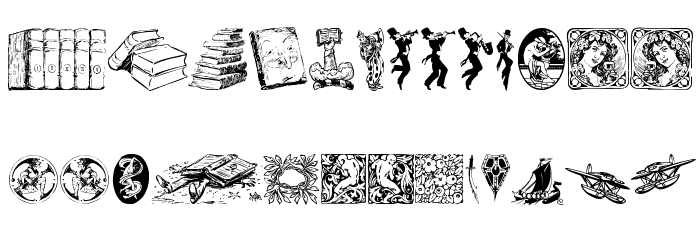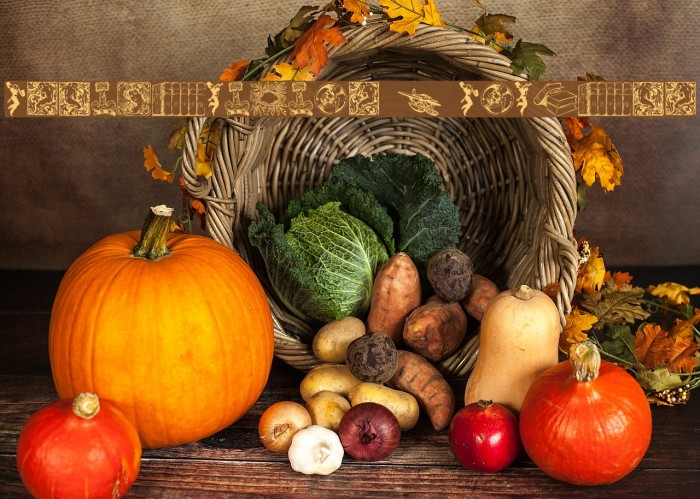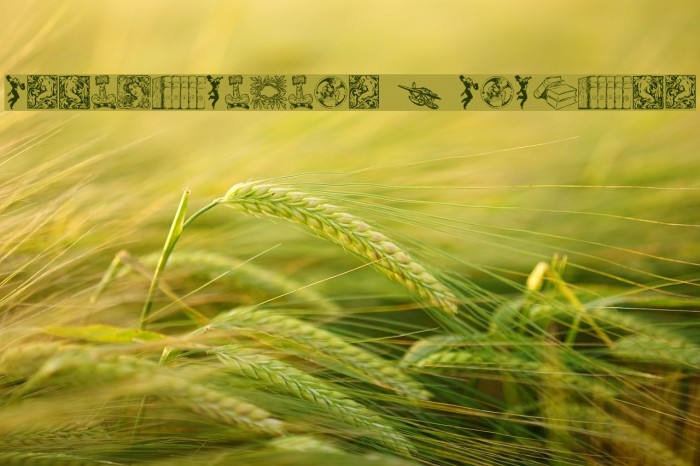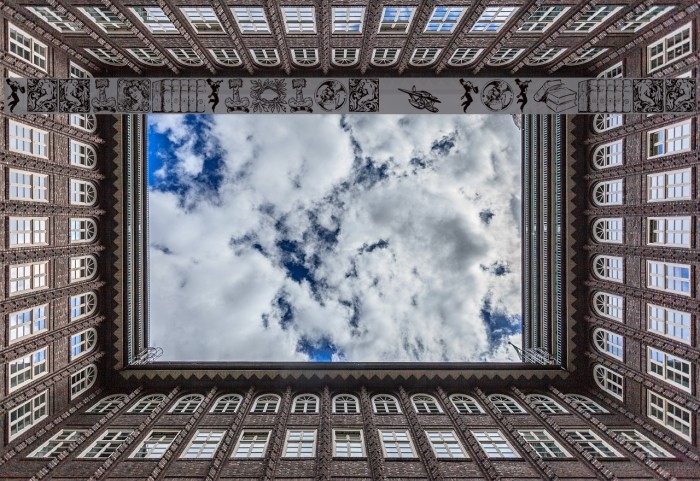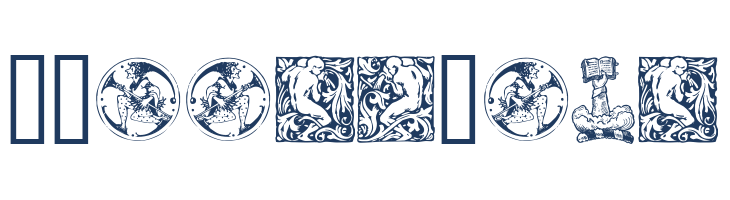
Listemagerens Ny Dingbats Font
This collection features a variety of intricate and whimsical illustrations, each with a distinct vintage charm. The designs include detailed depictions of books, dancers, and ornate frames, among others. Each character is rendered with fine lines and elaborate detailing, making them suitable for decorative purposes. The style evokes a sense of nostalgia and artistry, reminiscent of classic illustrations found in old manuscripts or storybooks. The elements are versatile, offering a unique touch to any creative project that requires a touch of elegance and historical flair.
A collection of vintage-style illustrations with intricate detailing.
- Proposed Projects: Ideal for vintage-themed invitations, book covers, greeting cards, and decorative art projects.
- Overall Style: Vintage
- Use Case: Decorative art, Invitations, Book covers